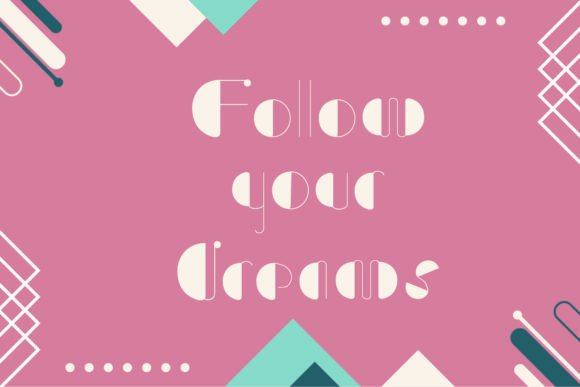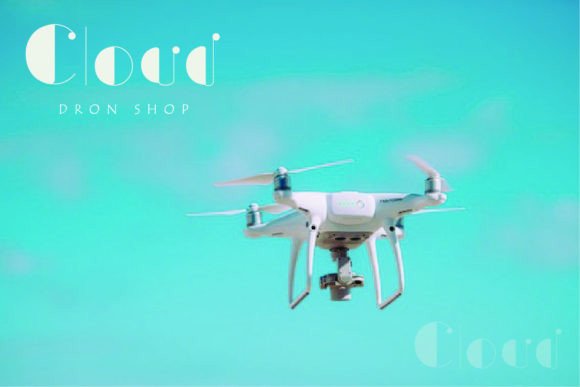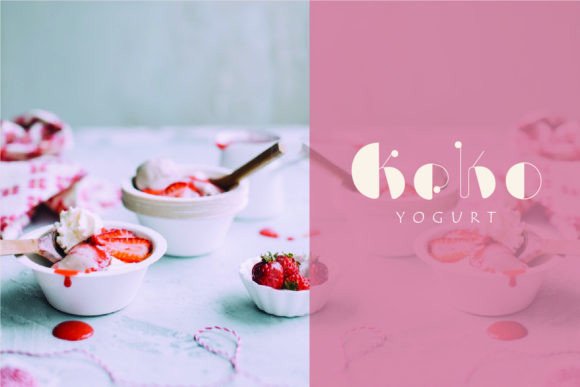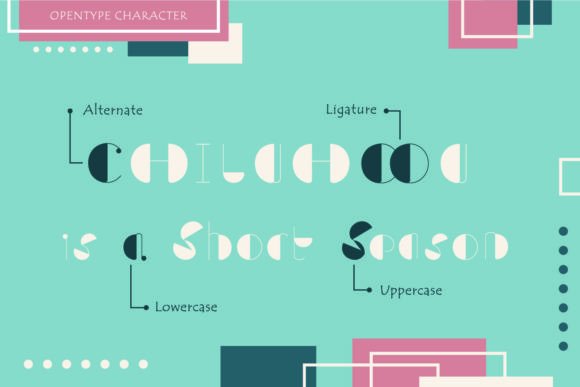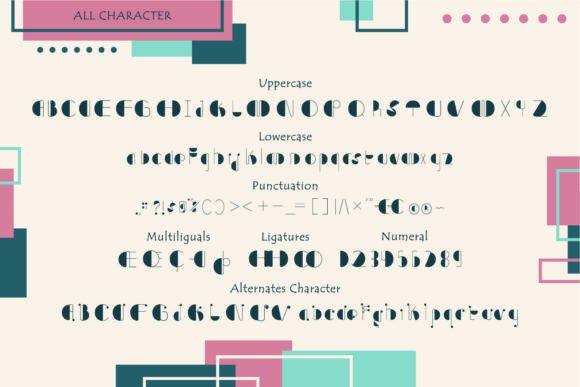
Introducing Dapipe Font: The Fun and Modern Display Font for Creative Projects
Are you tired of using the same old fonts for your creative projects? Look no further than Dapipe Font, a fun and modern display font that’s perfect for adding a youthful vibe to your designs. With its unique and playful style, Dapipe Font is ideal for a wide range of applications, from invitations and greeting cards to branding materials, business cards, quotes, posters, and more!
What Makes Dapipe Font So Special?
Dapipe Font is a carefully crafted display font that’s designed to make a statement. Its modern and edgy style is perfect for designers and crafters who want to add a touch of personality to their work. The font’s youthful vibe is infectious, making it perfect for projects that require a fresh and energetic feel.
One of the key features that sets Dapipe Font apart is its versatility. Whether you’re working on a formal or informal project, this font is sure to impress. Its clean lines and bold shapes make it easy to read, while its unique style adds a touch of whimsy and fun.
Dapipe Font is a highly versatile font that can be used for a wide range of applications. Here are just a few ideas to get you started:
- Invitations: Whether you’re planning a wedding, birthday party, or baby shower, Dapipe Font is the perfect choice for your invitations. Its modern style and playful vibe make it sure to impress your guests.
- Greeting Cards: Add a personal touch to your greeting cards with Dapipe Font. Whether you’re sending a happy birthday, get well, or congratulations card, this font is sure to make your card stand out.
- Branding Materials: If you’re looking for a font that will help you establish your brand identity, Dapipe Font is a great choice. Its unique style and modern vibe make it perfect for logos, business cards, and other branding materials.
- Business Cards: Make a statement with your business cards using Dapipe Font. Its bold shapes and clean lines make it easy to read, while its unique style adds a touch of personality.
- Quotes and Posters: Add some inspiration to your quotes and posters with Dapipe Font. Its modern style and playful vibe make it perfect for motivational quotes, advertisements, and other eye-catching designs.
Why Designers and Crafters Love Dapipe Font
Dapipe Font has quickly become a favorite among designers and crafters, and it’s easy to see why. Here are just a few reasons why this font is a must-have for any creative:
- Unique Style: Dapipe Font has a unique and playful style that’s sure to make your designs stand out. Its modern vibe and youthful energy make it perfect for designers and crafters who want to add a touch of personality to their work.
- Easy to Read: Despite its bold and playful style, Dapipe Font is easy to read, making it perfect for a wide range of applications.
- Highly Versatile: Dapipe Font can be used for a wide range of applications, from formal to informal projects.
- Time-Saving: With Dapipe Font, you can create professional-looking designs in no time. Its modern style and clean lines make it easy to pair with other fonts and design elements.